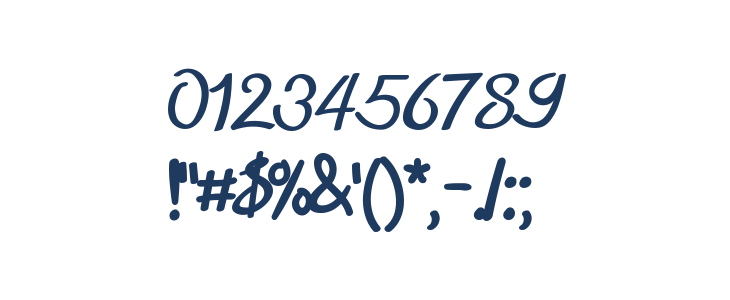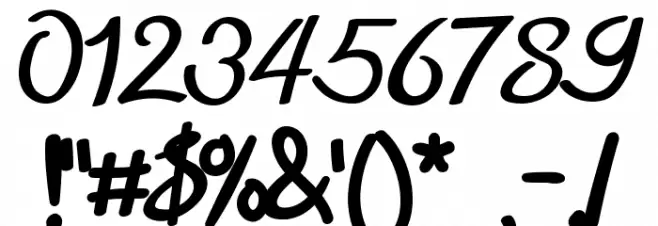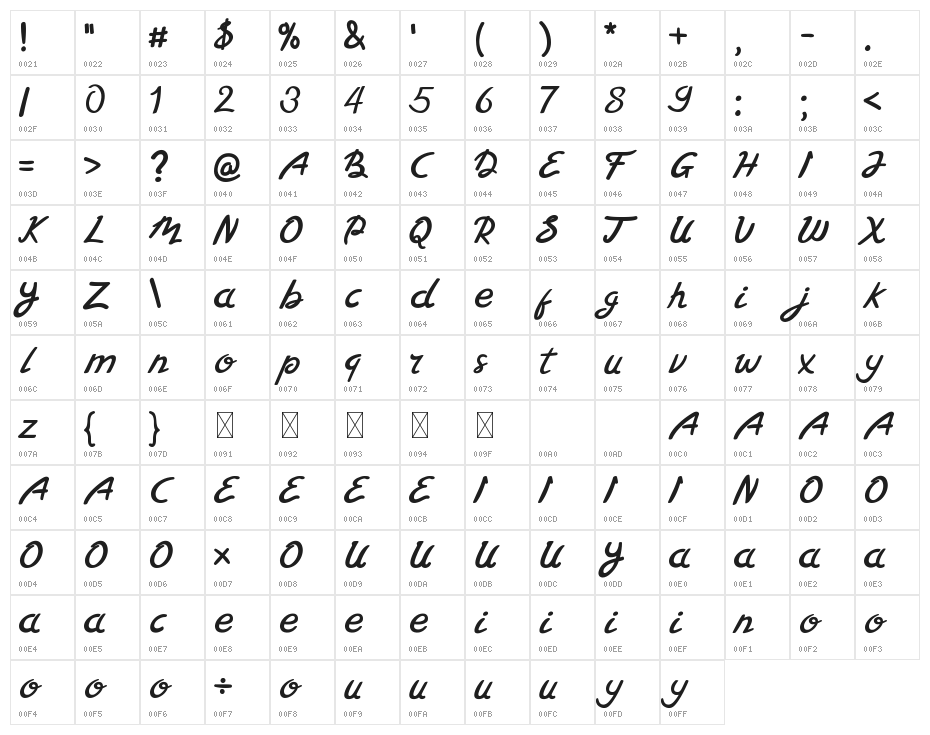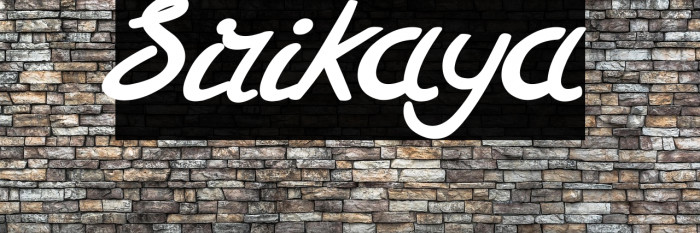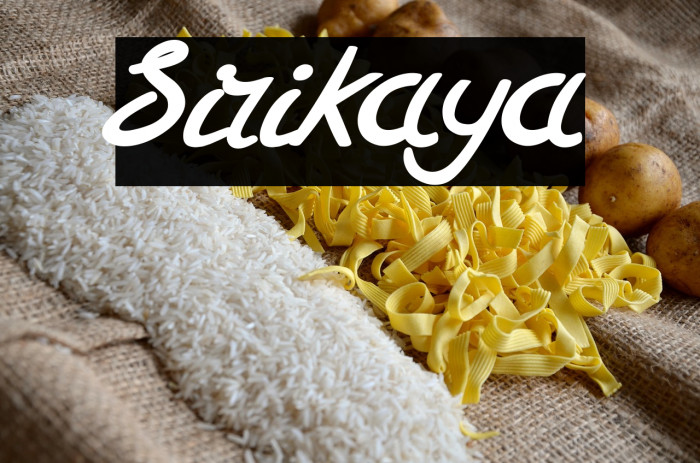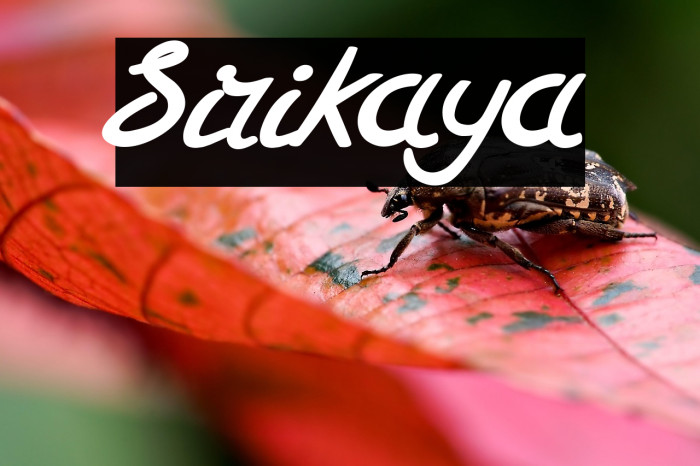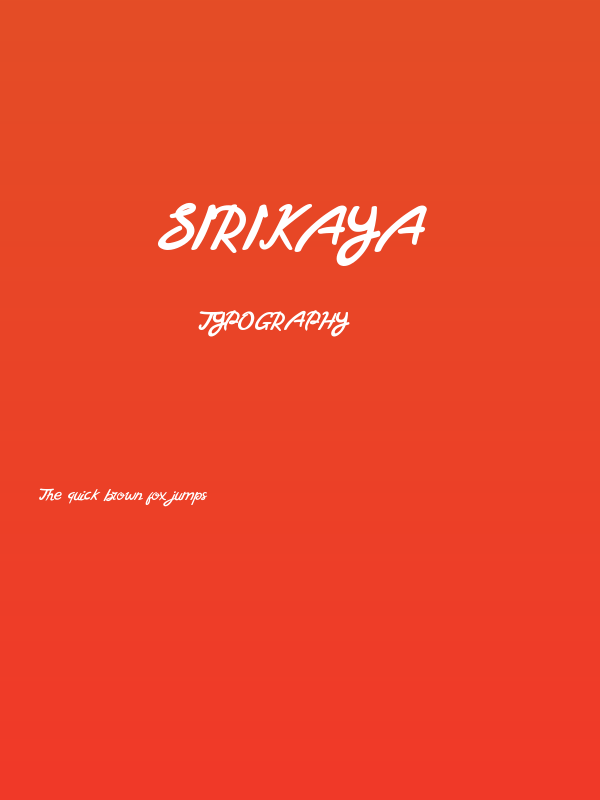
Sirikaya Font
Sirikaya Description
This font features a dynamic and flowing script style, characterized by its elegant and cursive letterforms. The strokes are smooth and connected, giving it a handwritten appearance that is both stylish and legible. The uppercase letters are bold and slightly slanted, while the lowercase letters maintain a consistent flow with a slight inclination. The numerals are rounded and harmonize well with the overall script style. Special characters are crafted with the same fluidity, ensuring a cohesive look across all glyphs. This font is ideal for projects that require a personal touch or a sense of sophistication.